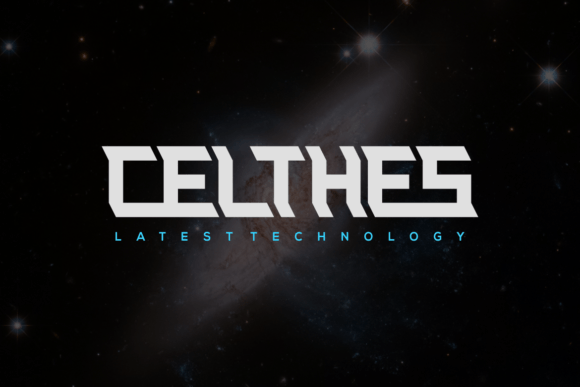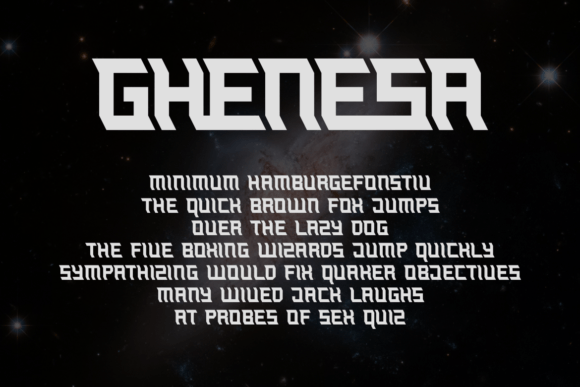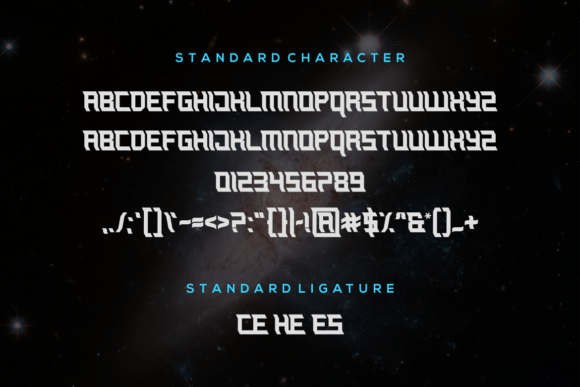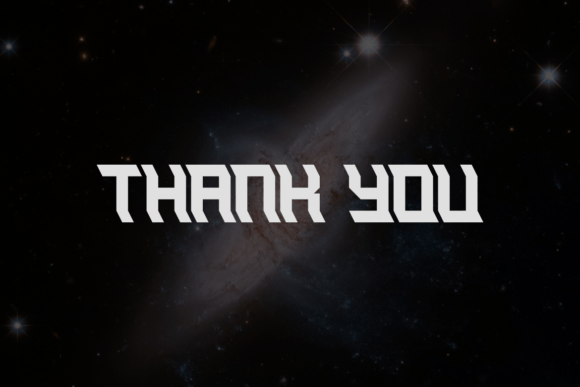
Ghenesa Font: Elevate Your Designs with a Modern, Futuristic Twist
Are you tired of using the same old fonts in your creative projects? Look no further than Ghenesa Font, a modern, futuristic display font that’s sure to take your designs to the next level. With its sleek lines, geometric shapes, and avant-garde style, Ghenesa Font is the perfect addition to any designer’s toolkit.
What is Ghenesa Font?
Ghenesa Font is a contemporary, sans-serif font designed to make a statement. Its unique blend of modern and futuristic elements gives it a distinctive look that’s both stylish and attention-grabbing. Whether you’re working on a logo, brochure, website, or social media graphics, Ghenesa Font is sure to add a touch of sophistication and elegance to your designs.
Key Features of Ghenesa Font
- Modern and Futuristic Design: Ghenesa Font boasts a sleek, cutting-edge design that’s perfect for designers who want to stay ahead of the curve.
- Geometric Shapes: The font’s geometric shapes give it a futuristic feel that’s both visually striking and versatile.
- Highly Legible: Despite its avant-garde style, Ghenesa Font remains highly legible, making it perfect for use in a variety of applications, from headlines to body text.
- Multi-Language Support: Ghenesa Font supports multiple languages, making it a great choice for designers working on international projects.
Why Use Ghenesa Font?
So why should you choose Ghenesa Font for your next design project? Here are just a few reasons:
- Add a Touch of Futurism to Your Designs: With Ghenesa Font, you can add a touch of futurism to your designs, making them stand out in a crowded marketplace.
- Perfect for Creative Projects: Whether you’re working on a logo, brochure, or website, Ghenesa Font is the perfect choice for creative projects that require a modern, avant-garde style.
Design Ideas Using Ghenesa Font
Here are some design ideas to get you started with Ghenesa Font:
- Logo Design: Use Ghenesa Font to create a modern, futuristic logo that’s sure to make a statement.
- Brochure Design: Add a touch of sophistication to your brochures with Ghenesa Font, perfect for businesses, events, or marketing campaigns.
- Website Design: Use Ghenesa Font to create a visually striking website that’s both modern and user-friendly.
- Social Media Graphics: Create eye-catching social media graphics with Ghenesa Font, perfect for Facebook, Instagram, Twitter, and more.
In conclusion, Ghenesa Font is a modern, futuristic display font that’s perfect for designers who want to add a touch of sophistication and elegance to their creative projects. With its sleek lines, geometric shapes, and avant-garde style, Ghenesa Font is sure to take your designs to the next level. So why wait? Download Ghenesa Font today and see the amazing results for yourself!